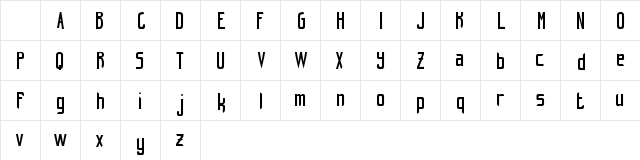
hint-retro_free-version wears its vintage influences proudly, with letterforms that recall mid-century signage, classic packaging, and nostalgia-driven design.
Font Pairing: Combine hint-retro_free-version with a simple slab or neutral sans - period-accurate companions reinforce the vintage feel without competing for attention.
Pro Tip: Lean into hint-retro_free-version's period character by pairing it with aged paper textures, muted colour palettes, and vintage illustration styles.